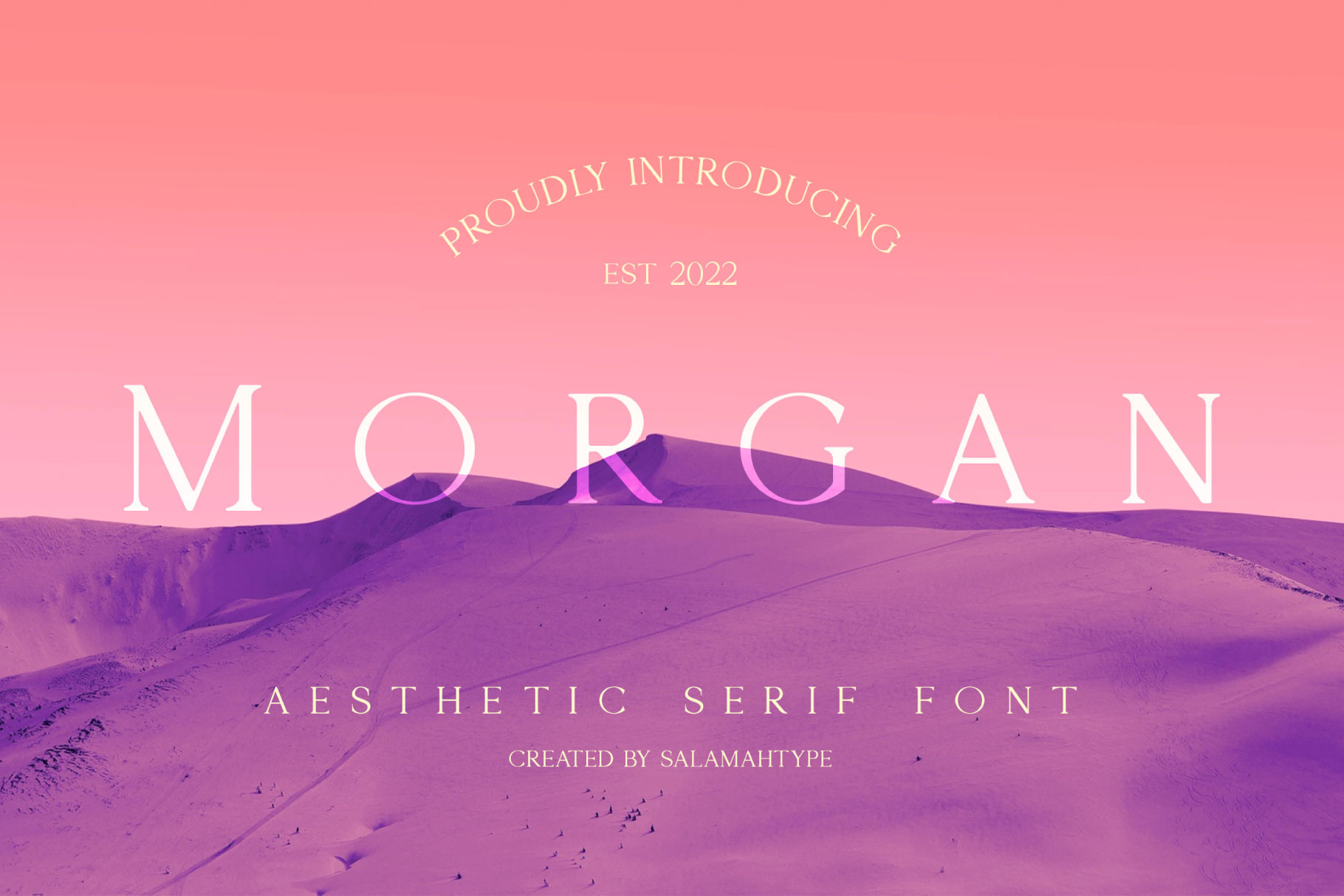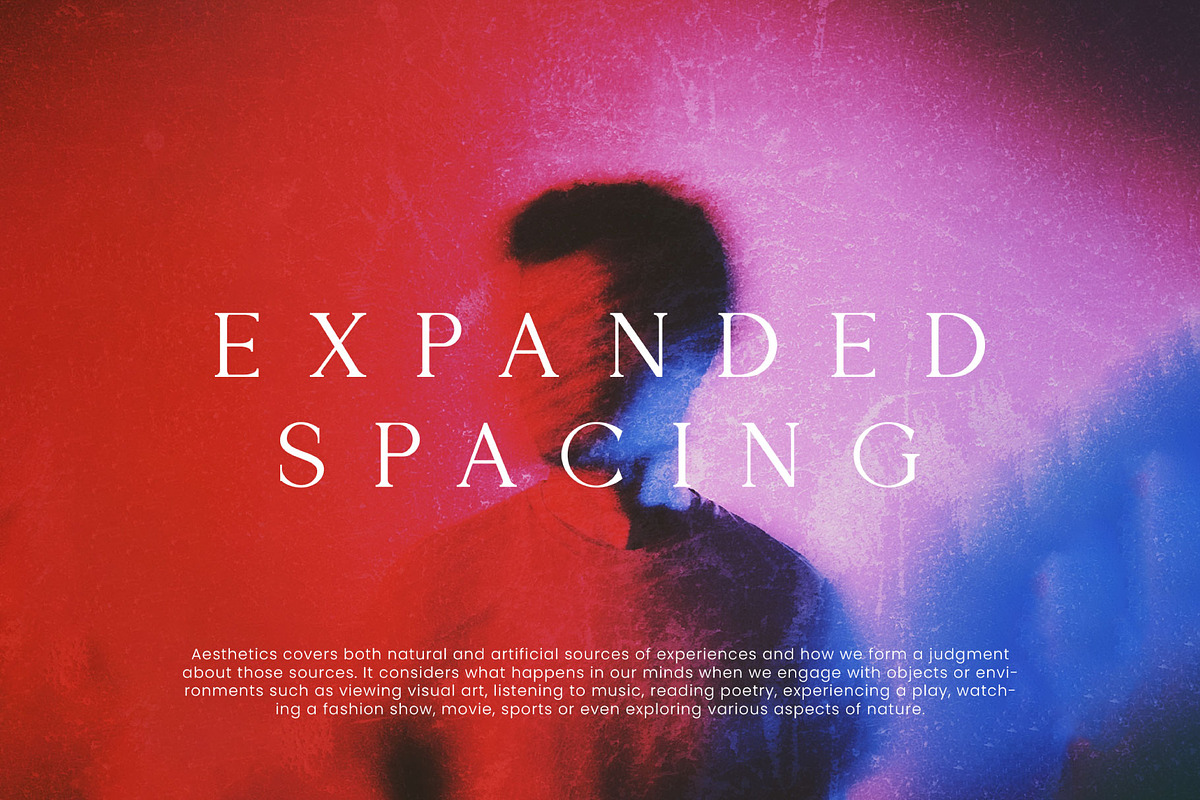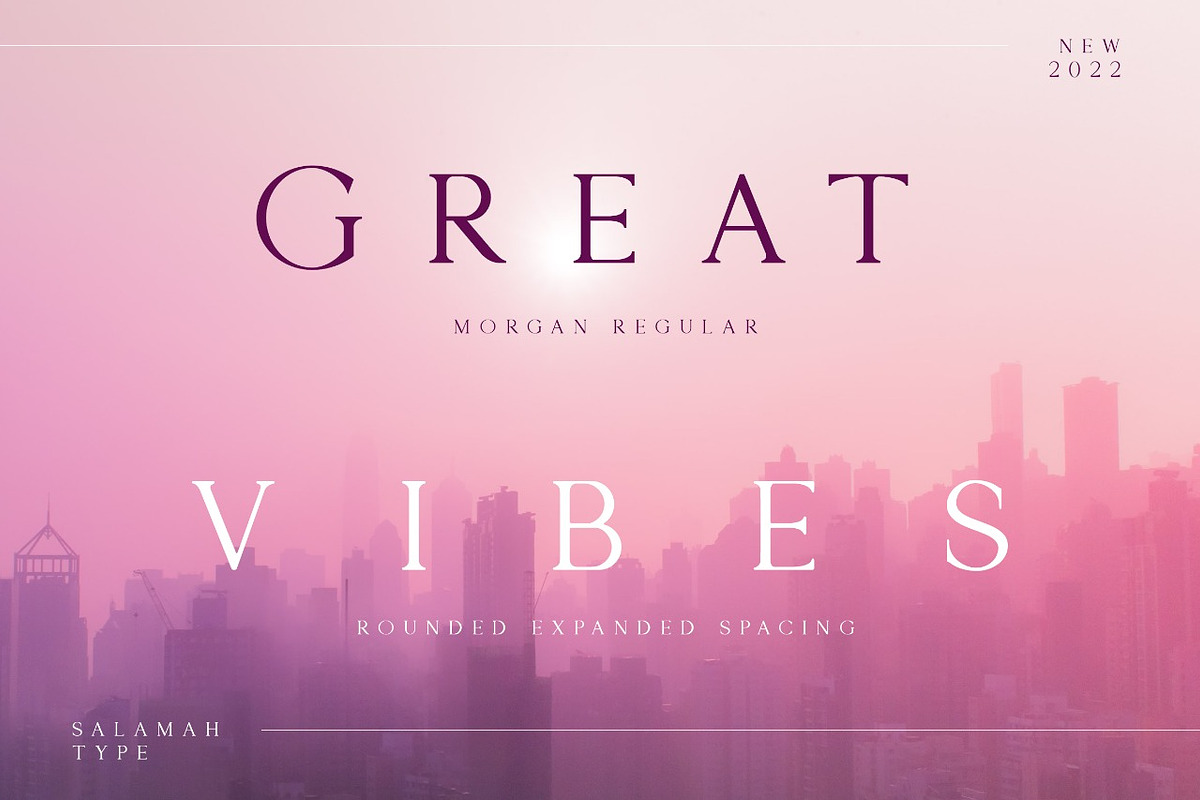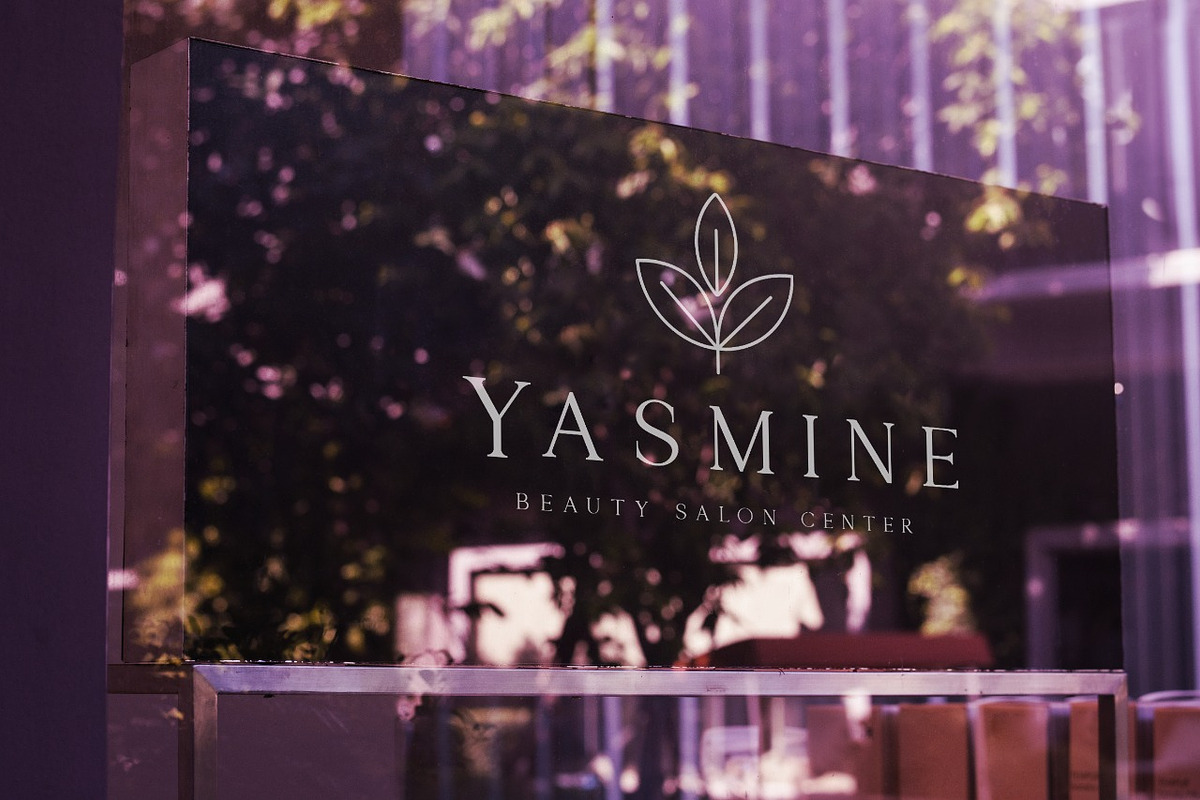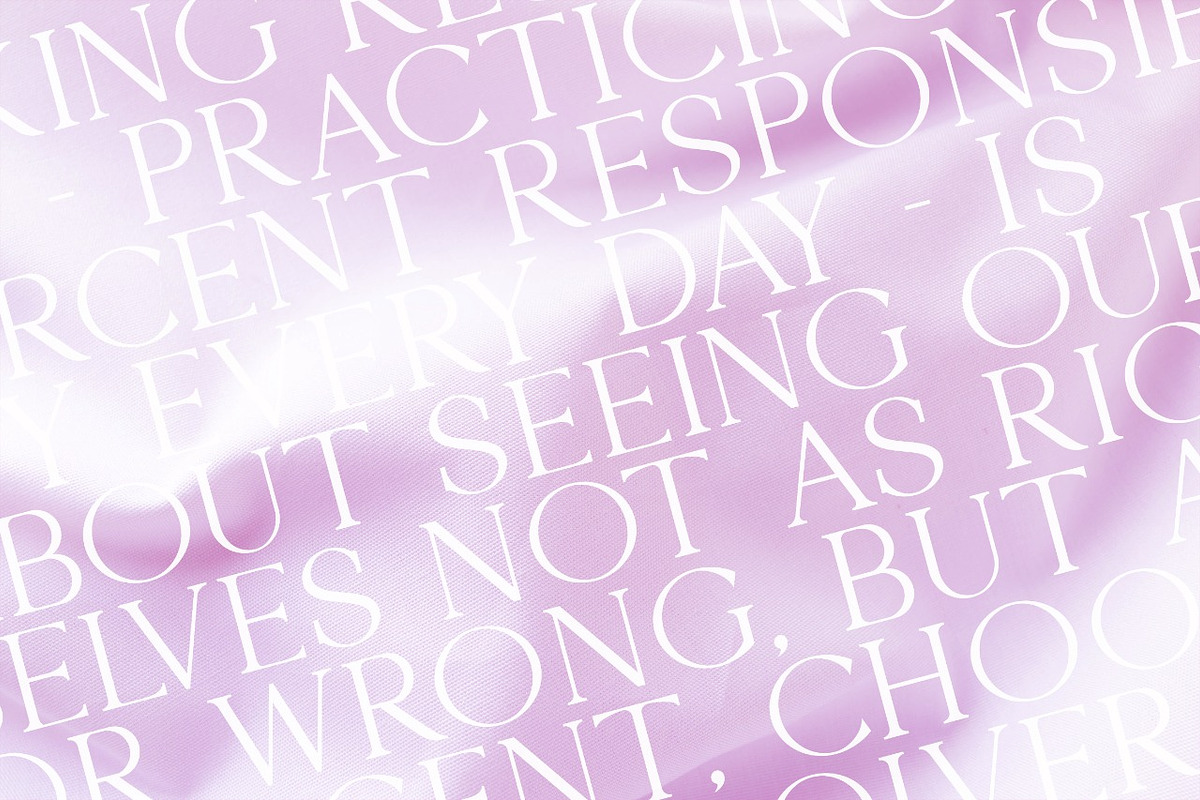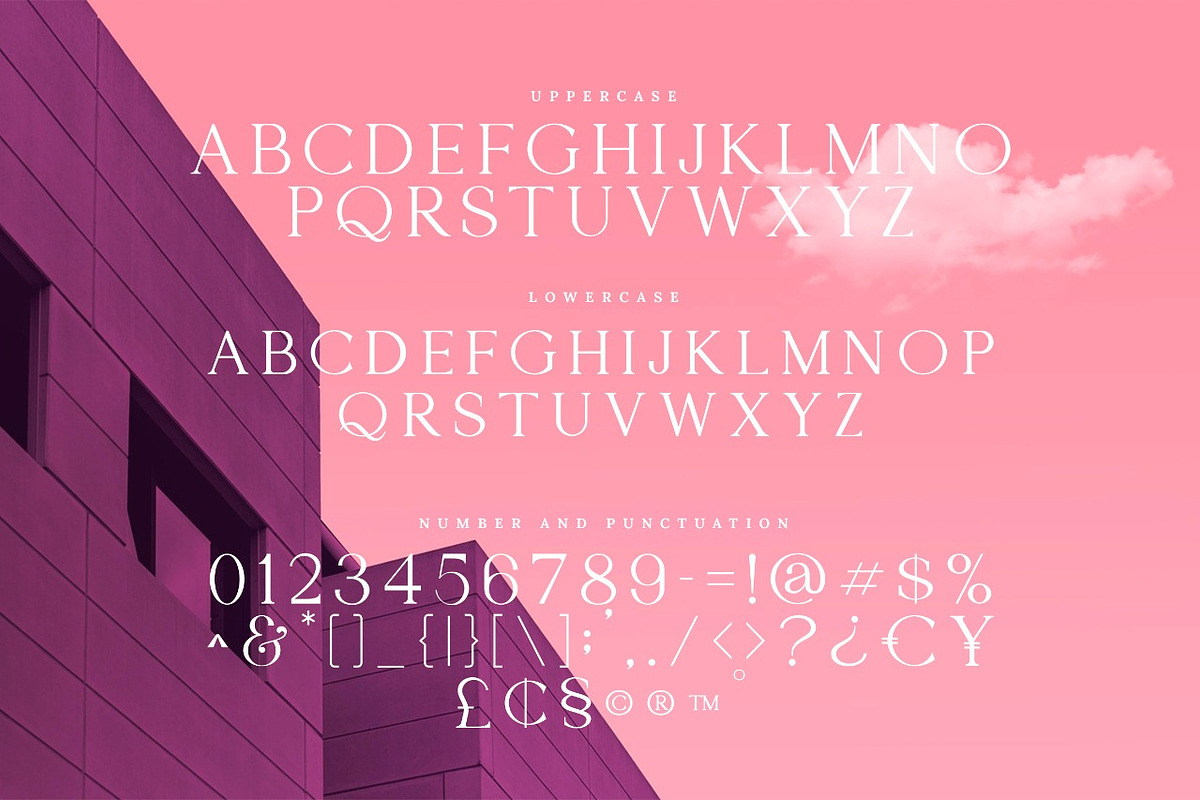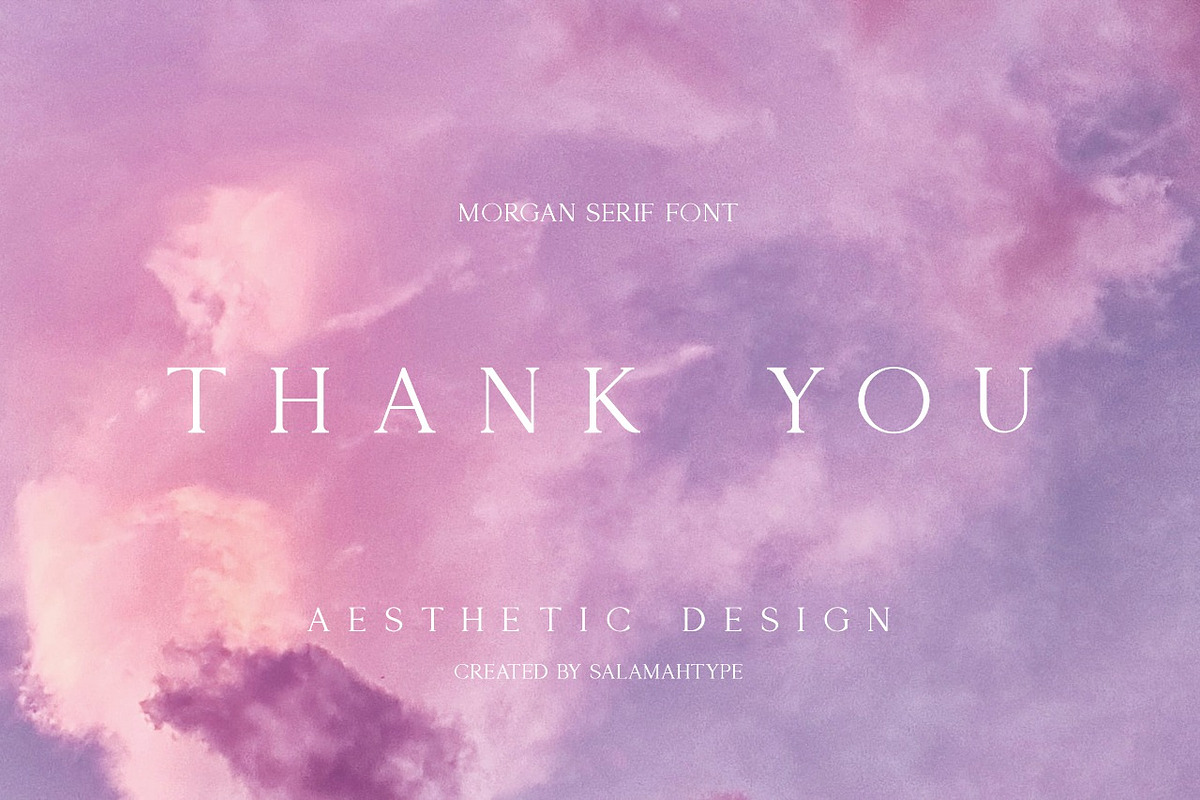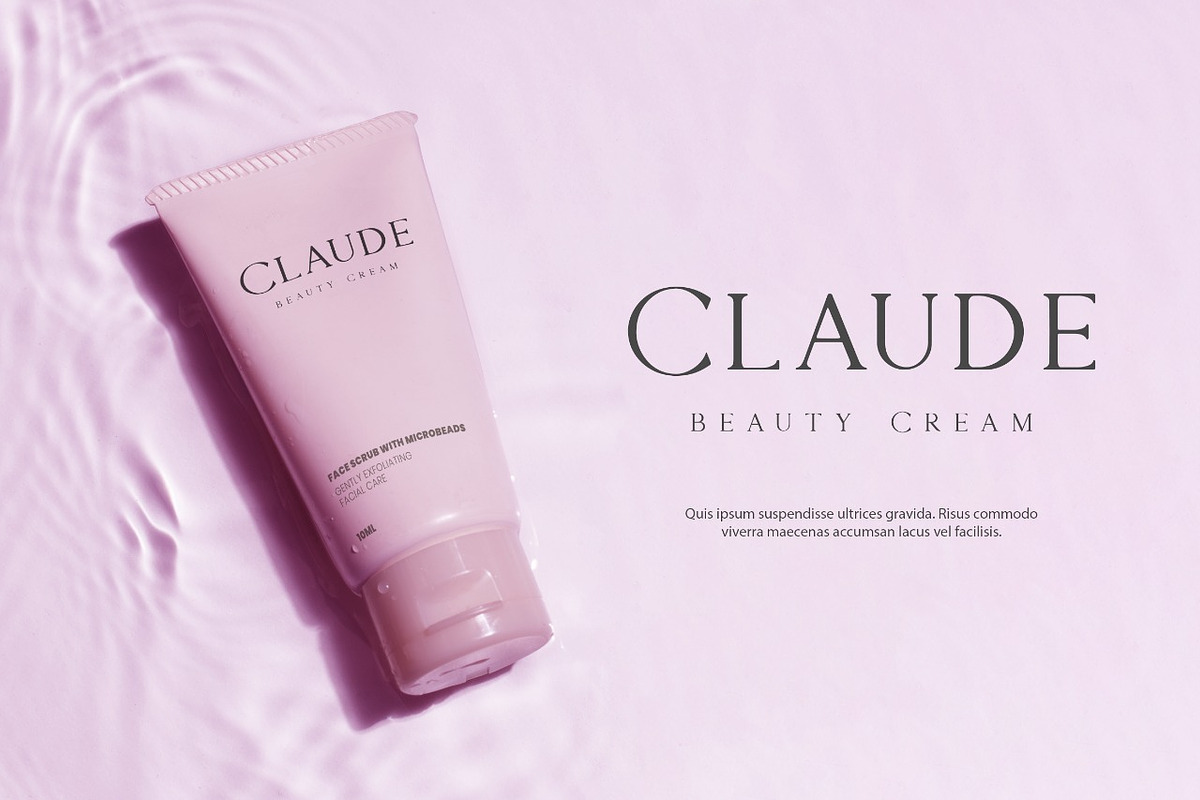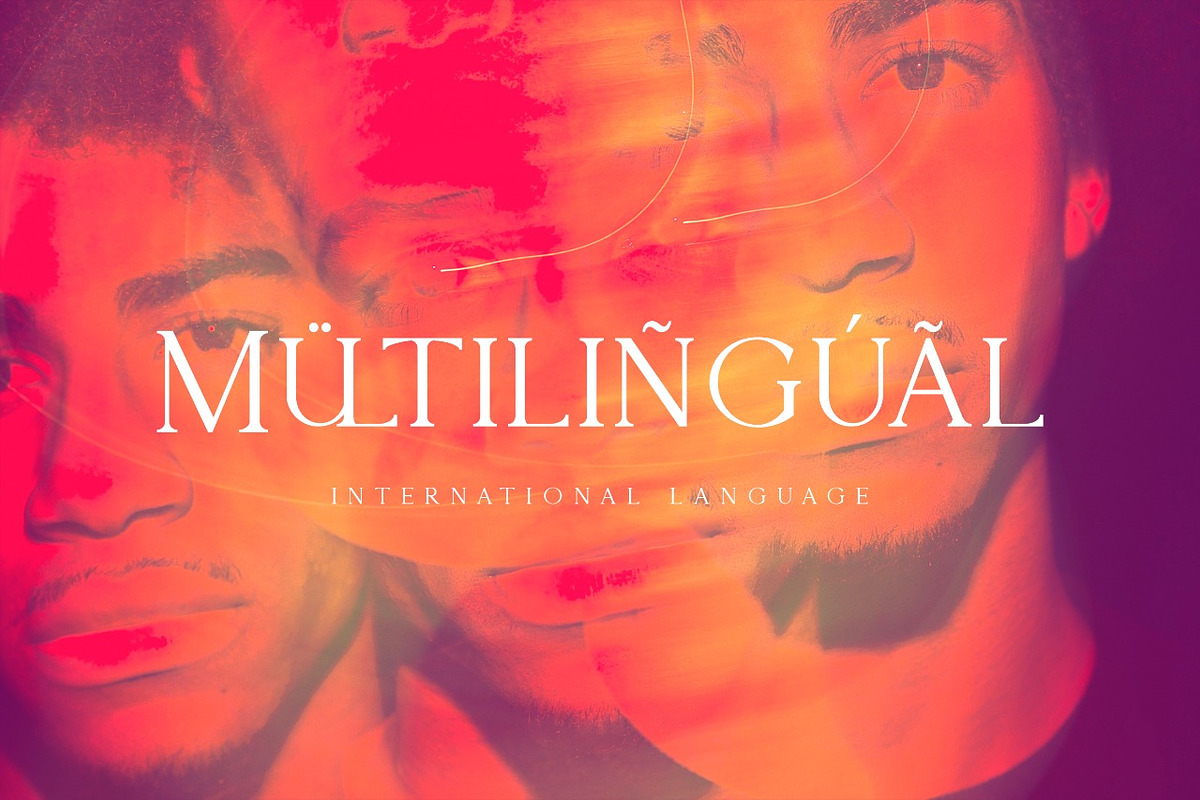
Morgan - Serif Font
Introducing our font named “MORGAN”, which is a serif font consisting of 4 styles. Morgan is an elegant and clean font suitable for a variety of your business needs, from product packaging, product branding, logos, books, labels, wedding invitations and more.
- All Caps
- Symbols and punctuation
- Morgan regular – rounded – expanded spacing.